Port Magazine 2018 by Lena Karoline Weber & Tamara Knapp. Demonstrating Maelstrom by Klim
No Halloween-themed project is complete without some scary, spooky lettering to bring your designs to life (or should that be death?). And there are plenty of fonts out there on a horror theme.
But you don't want to go too cheesy, lest you reduce your creative work to the level of Microsoft clip art. Instead, you want sophisticated, high-quality typefaces that nonetheless convey the right level of dark drama and supernatural sensation.
To help you out, we've unearthed some earth-shattering fonts from various first-class foundries. All of these typefaces have the chops to summon the spirit of 31 October but also have the flexibility and broad appeal that can be used through the rest of the year too.
1. JAF Herb by Just Another Foundry
Perfect for spooky ghost stories, JAF Herb is based on 16th-century cursive broken scripts and printing types. Originally designed by Tim Ahrens, it features connecting letterforms that are rather tightly spaced. The idea was to develop a typeface with the properties of Blackletter without evoking any negative connotations. The design retains the complex, humane character of fraktur without appearing conservative, aggressive or intolerant.
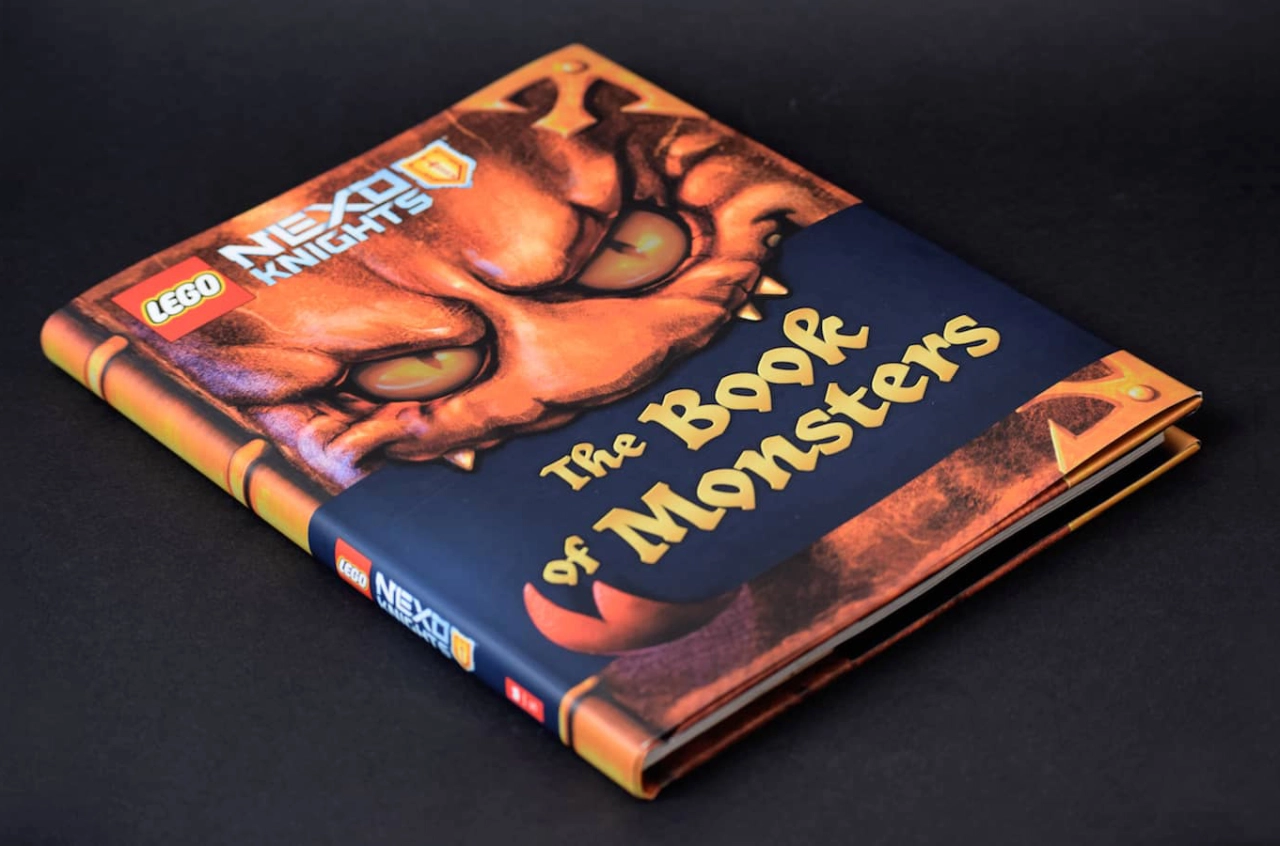
AF Herb by Just Another Foundry
2. Specter by MCKL
On its homepage, Specter uses the story of Hamlet as its sample text. And this constructed geometric sans, whose letterforms seem to resemble cut paper laying on top of each other, seems perfect for typesetting murderous tales of times gone by. Originally developed as a custom typeface for design firm Knock, Inc and inspired by Granby, Metro, and Tempo, its 90° sheared terminals allow for tight typesetting.
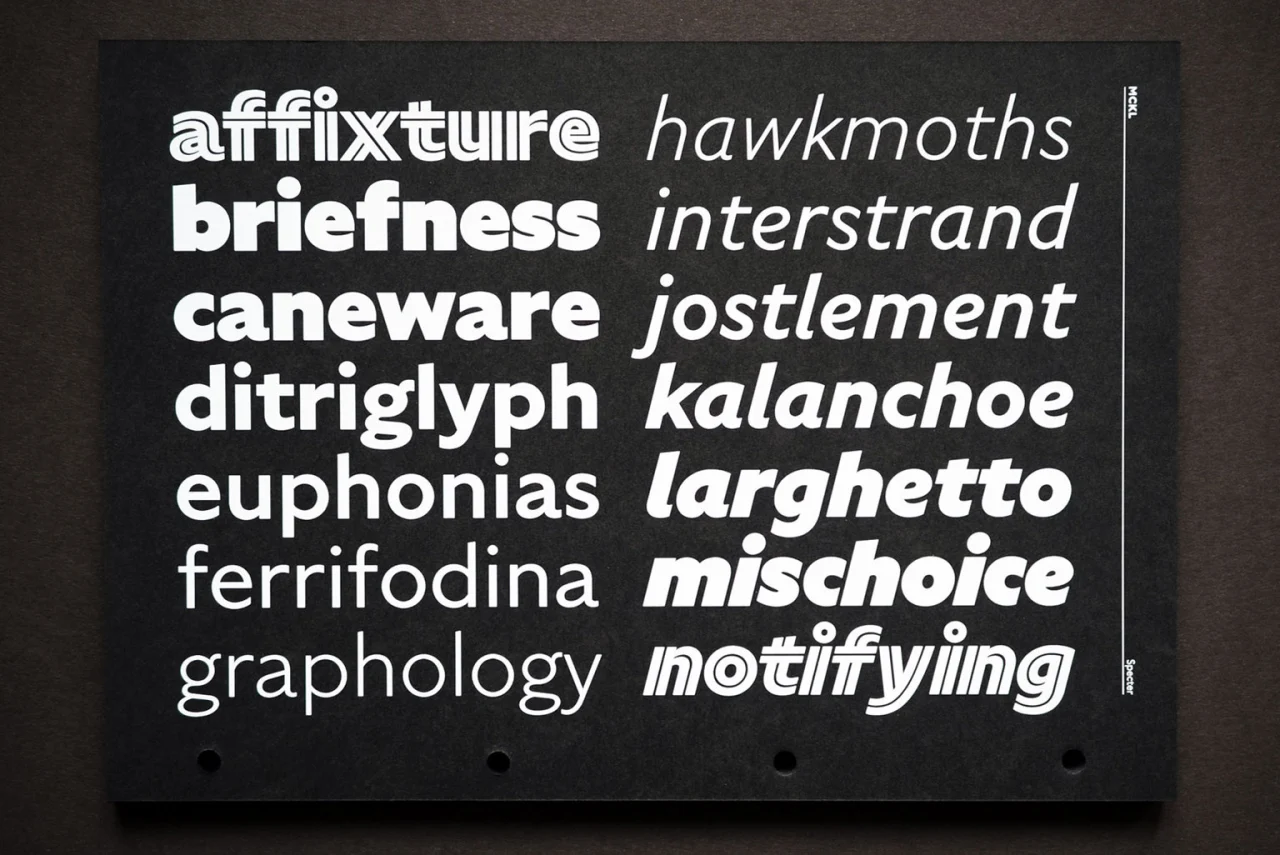
Specter by MCKL
3. Lucifer by Nguyen Gobber
Lucifer has a menacing appearance with sharp, expressive serifs and an overall organic look. It was inspired by the hand-lettering of Swiss designer Robert Stöcklin in his poster for the Schweizer Mustermesse Basel in 1924. Its expressive aesthetic excels in wordmarks, headlines, and poster designs. It works well in running text, too, making it a great workhorse for all occasions.
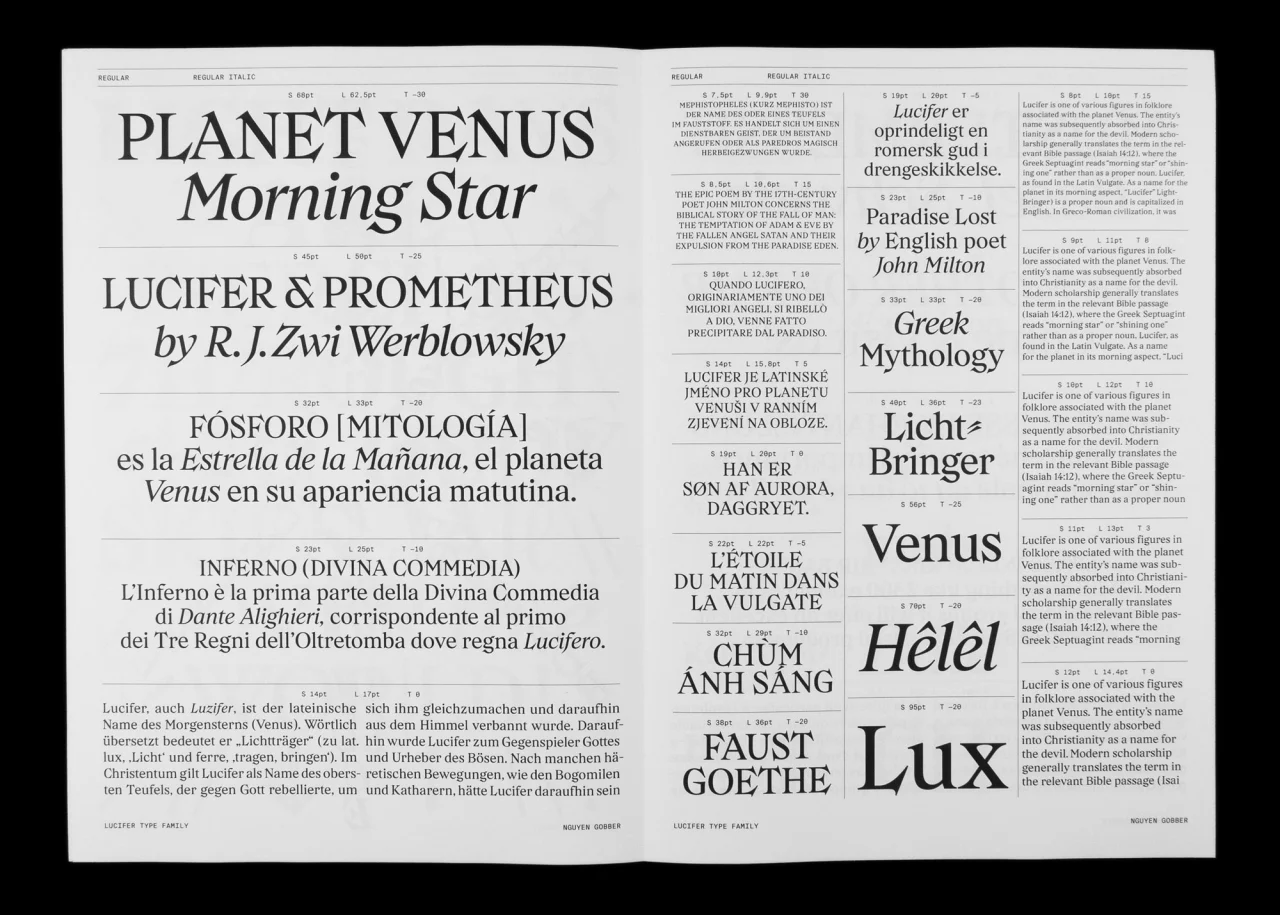
Lucifer by Nguyen Gobber
4. Widescreen by Dalton Maag
Widescreen was originally designed for a fictional company that, in the words of creators Dalton Maag, "outwardly looks benevolent but ultimately has a dark side". At first glance, it's a traditional sans serif with an Art Deco feel. Yet below the surface, it has an alter ego; an ultra-wide, almost Brutalist design hidden at the other end of its variable font width axis.
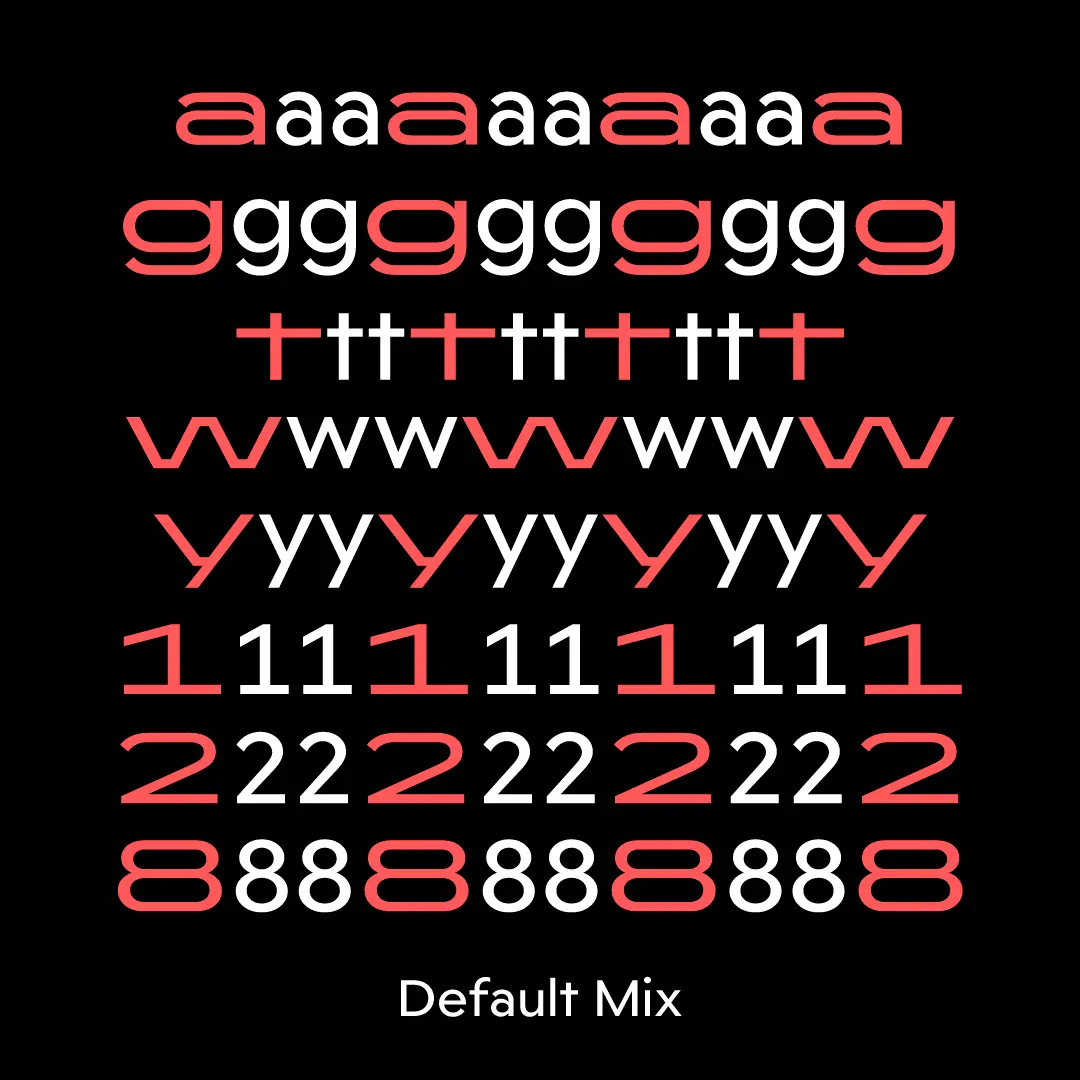
Widescreen by Dalton Maag
5. Maelstrom by Klim
There's a perverse charm to Maelstrom that makes it perfect for any Halloween project. This reversed-stress typeface's razor-thin spacing is striking, forming narrow strips of light sparkling through the black mass. Meanwhile, its companion font, Maelstrom Sans, offers a similarly uneasy mix of heavy horizontals and spindly diagonals that make it feel fragile like it could splinter at any moment.
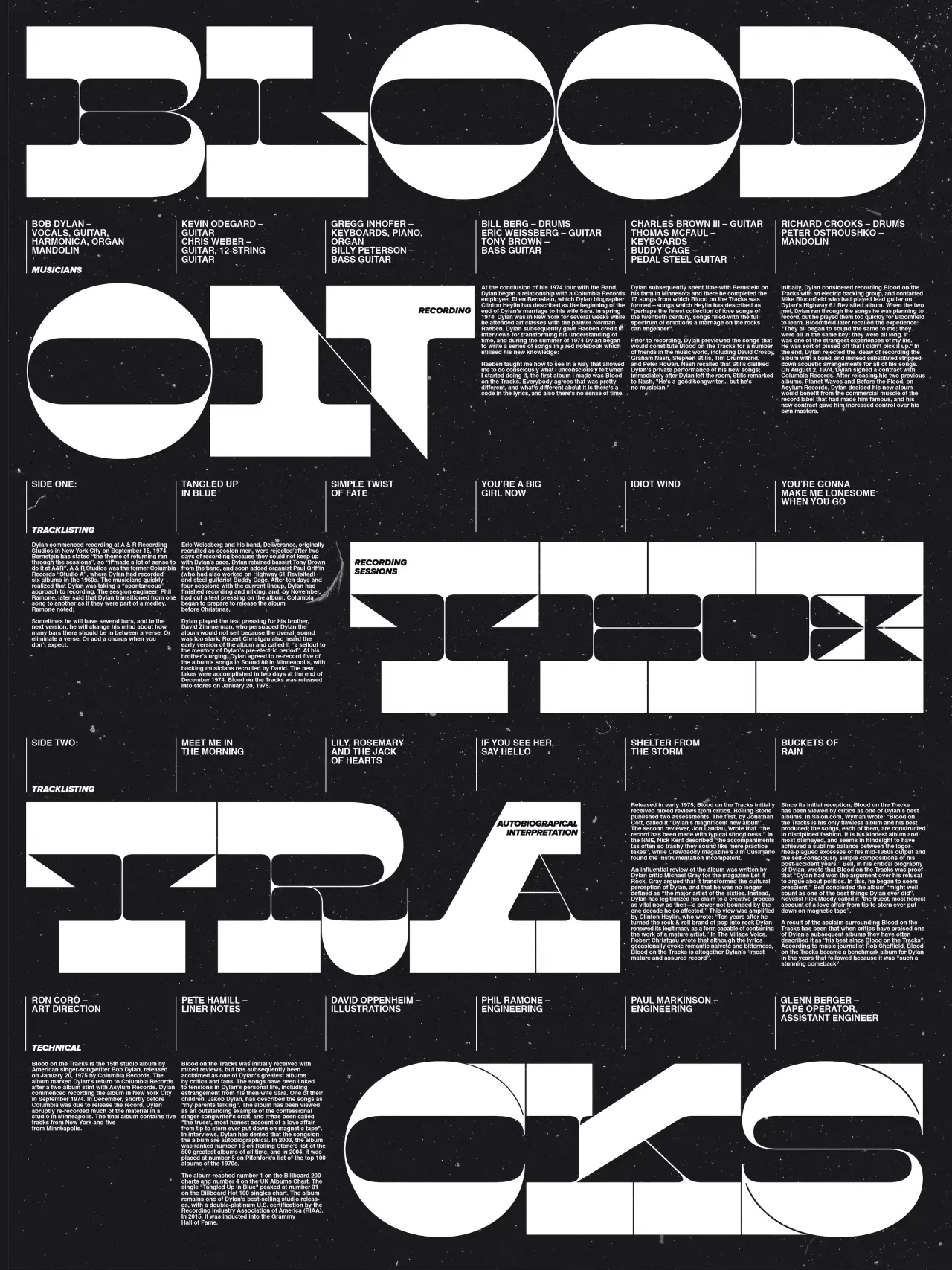
Blood On The Tracks by J. Rieger, using Maelstrom by Klim
6. Hades by DSType
Hades is a dark, contemporary blackletter for short, eye-catching headlines. Designed by Dino dos Santos and released in 2012, its incised forms and dynamic angles make for the kind of dramatic impact that instantly summons the spirit of the underworld. Open type features include fractions, standard ligatures and discretionary ligatures.
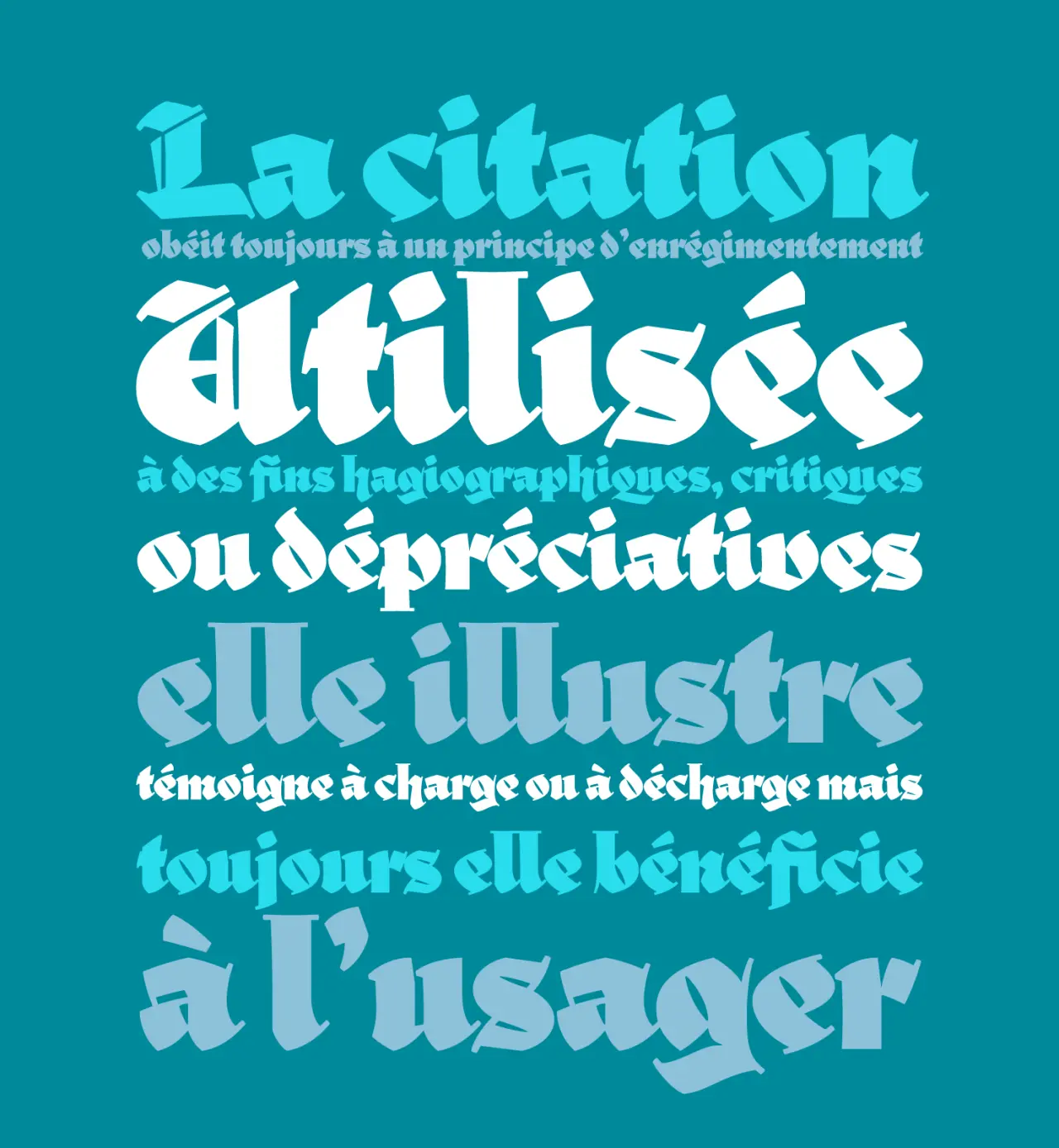
Hades by DSType
7. CWM by A2-TYPE
Infused with the spirit of totalitarian terror, CWM by A2-TYPE was inspired by the typography, poster design and printed ephemera from the Cold War era. It was created in 2008 as the principal typeface for 'Cold War Modern: Design 1945–1970', a catalogue published by the V&A Museum in London. The font has since been updated with the addition of two contrasting weights.
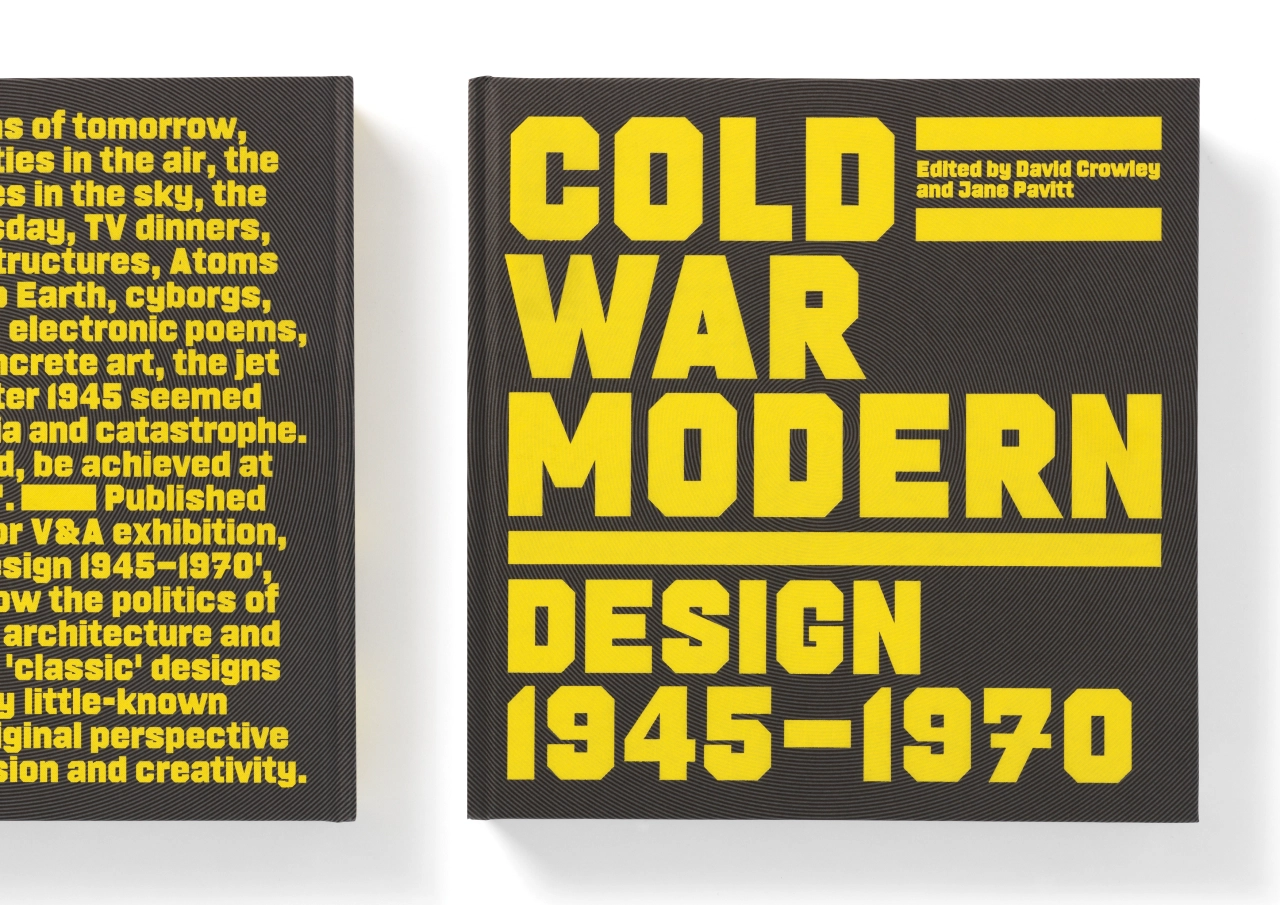
CWM by A2-TYPE
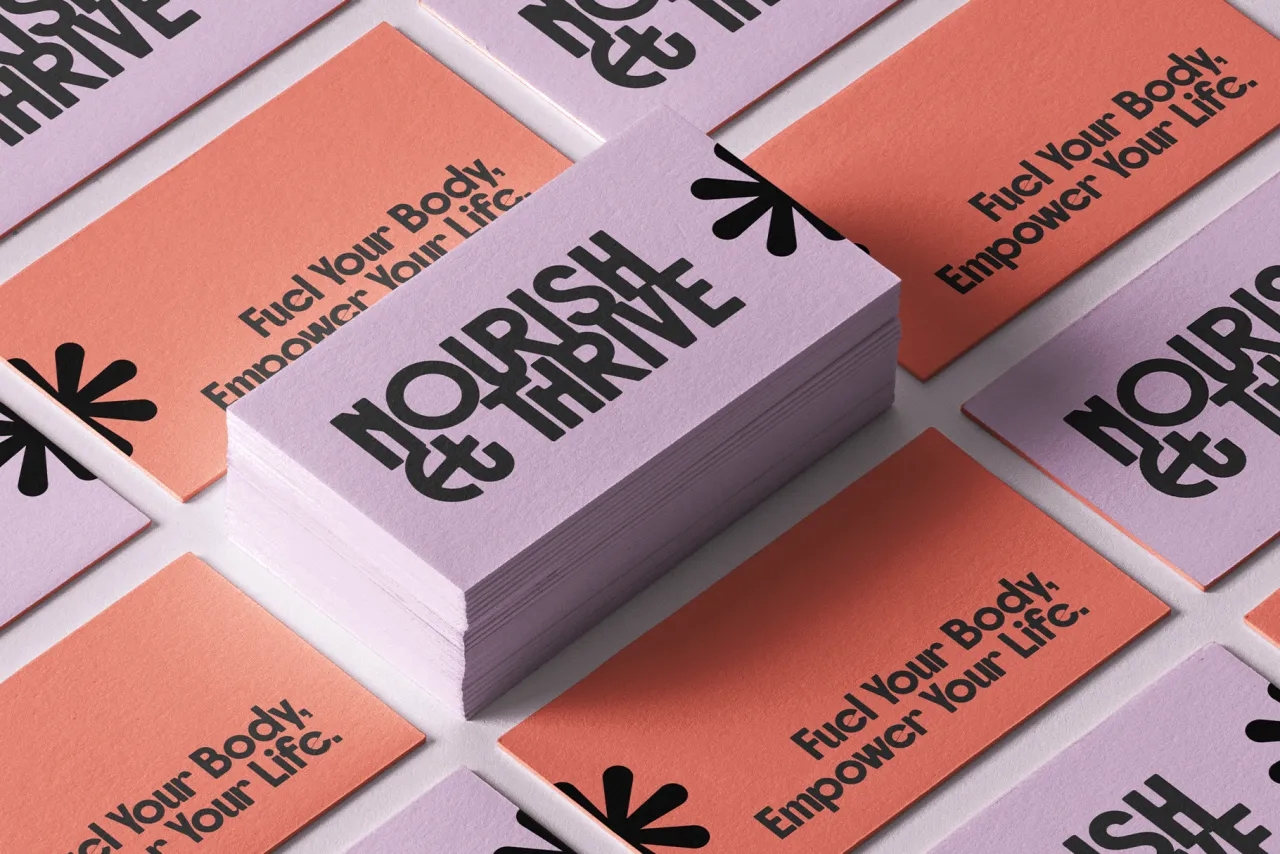
. In use by [Garbett](https://garbett.com.au/) for Career Trackers](https://media.creativeboom.com/514ca61a-e599-4ae7-bed3-a107421ce0f3/conversions/e8ba48815e7898e3d263f3452e50572efdb4fd9a-medium.webp)